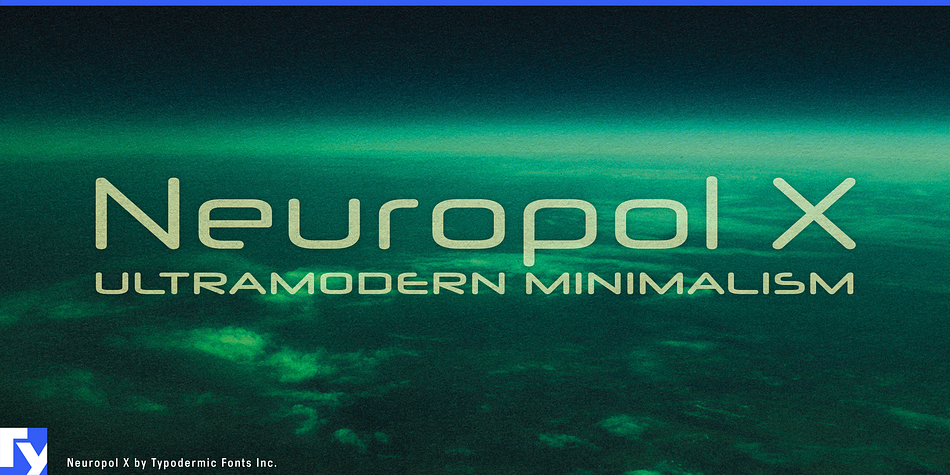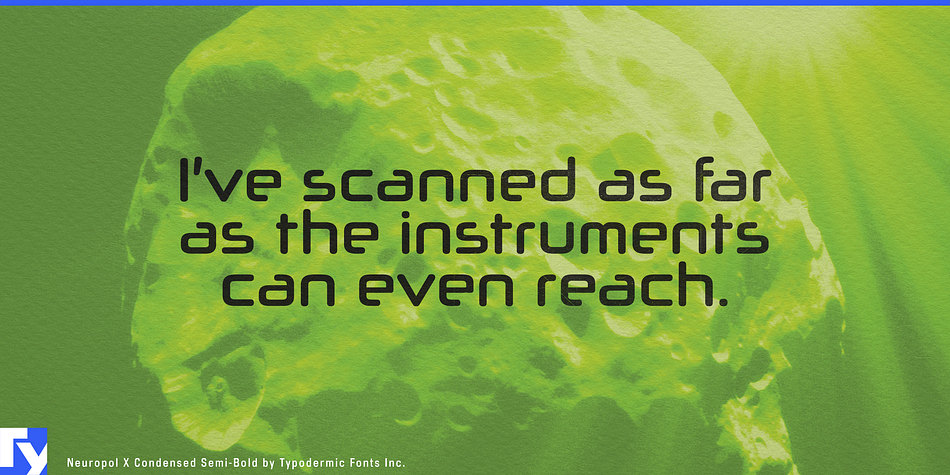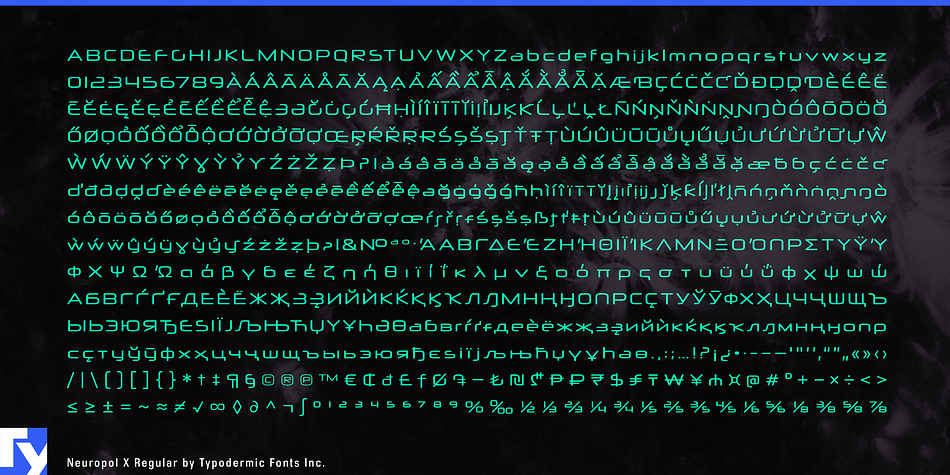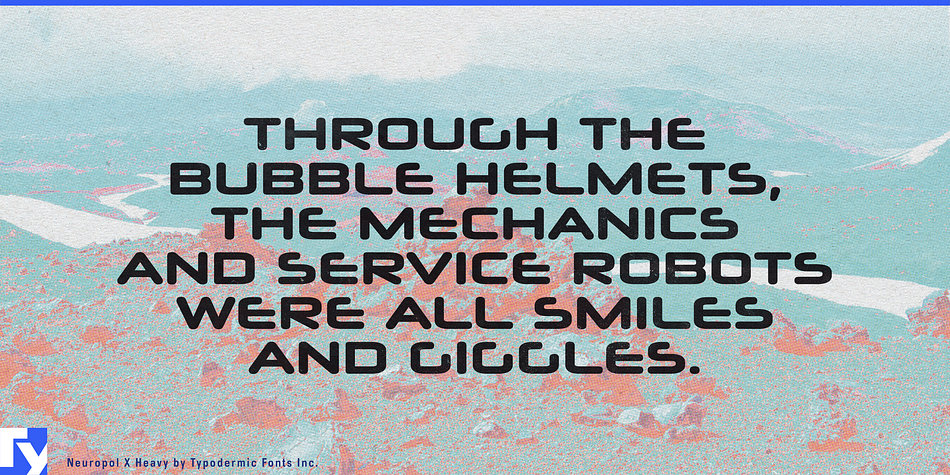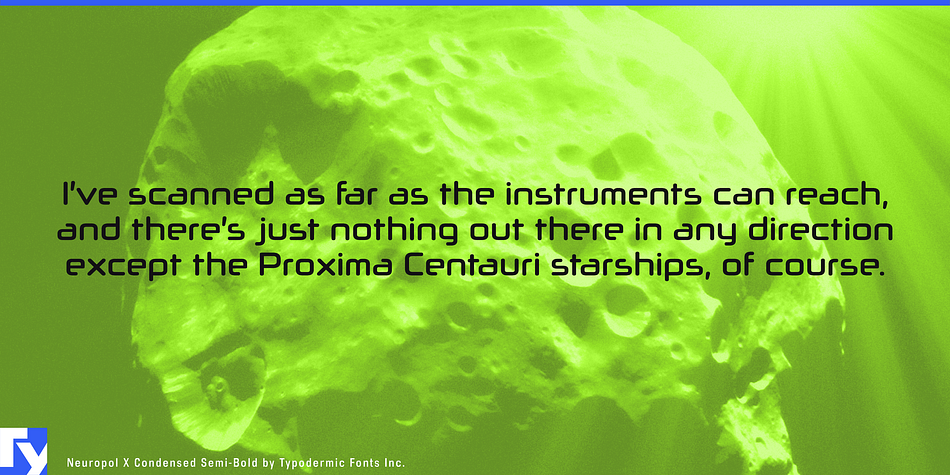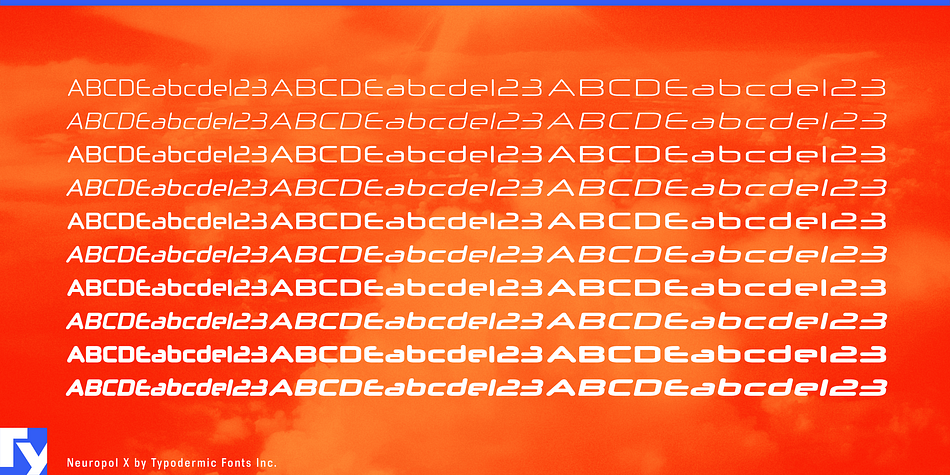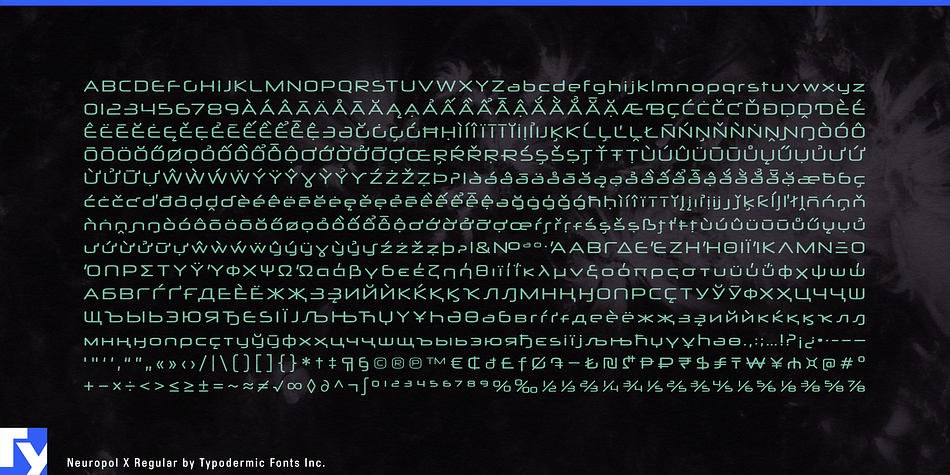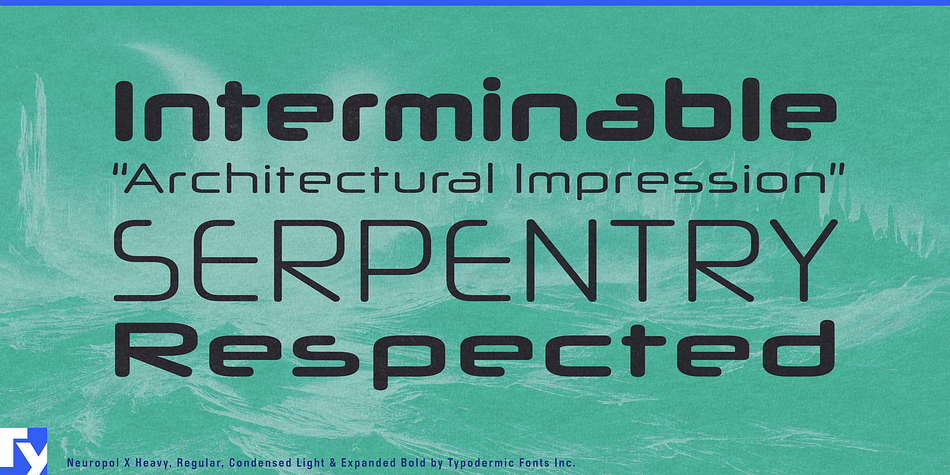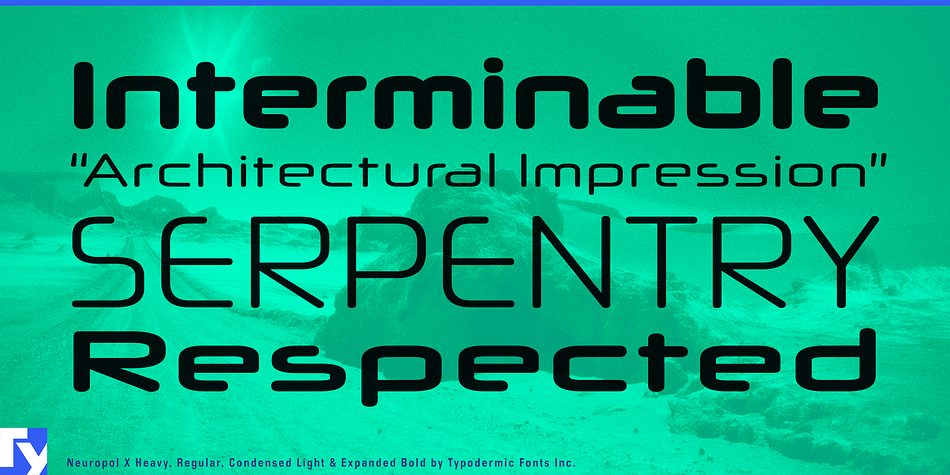
Neuropol X is a display sans font family. This typeface has thirty styles and was published by Typodermic Fonts Inc.
Neuropol X, a futuristic font recalling sci-fi, video games, Vectorbeams, and flatbed plotters. Neuropol X bridges the style gap between the geometric sans serif fonts of the late 20th century and superelliptical futuristic fonts.